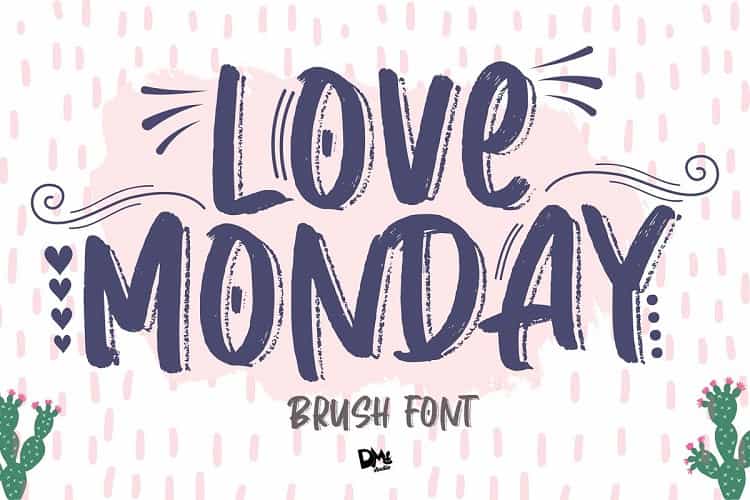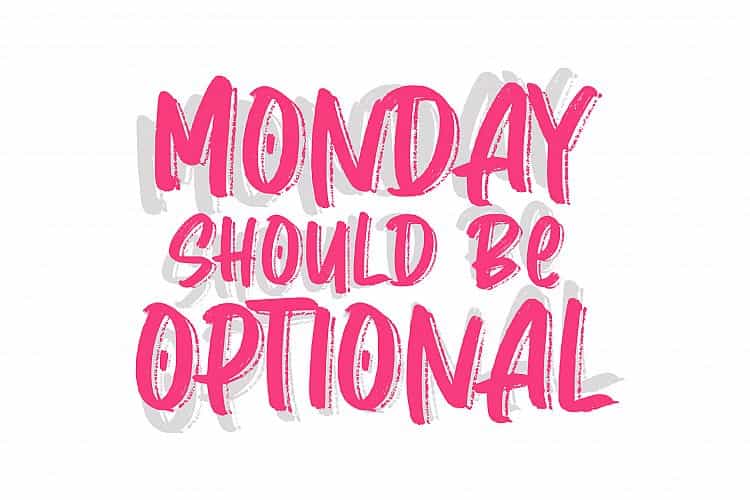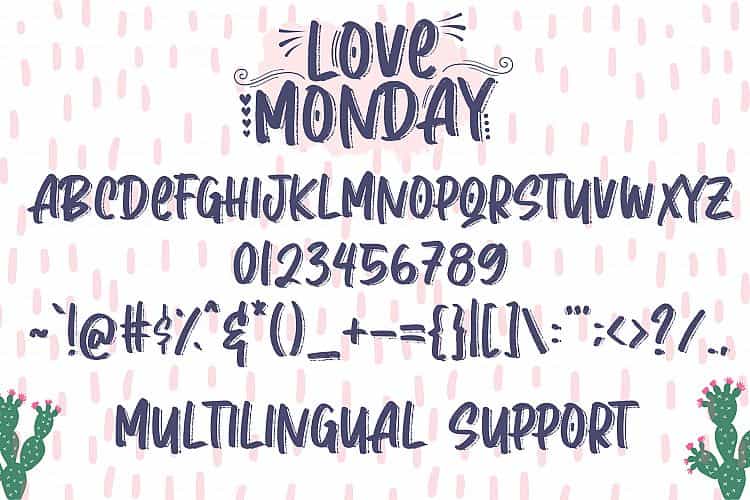
This Love Monday Brush Font will definitely brighten up your Monday and all the subsequent days of the work week. We are fond of the chic and chalky effect of the brush!